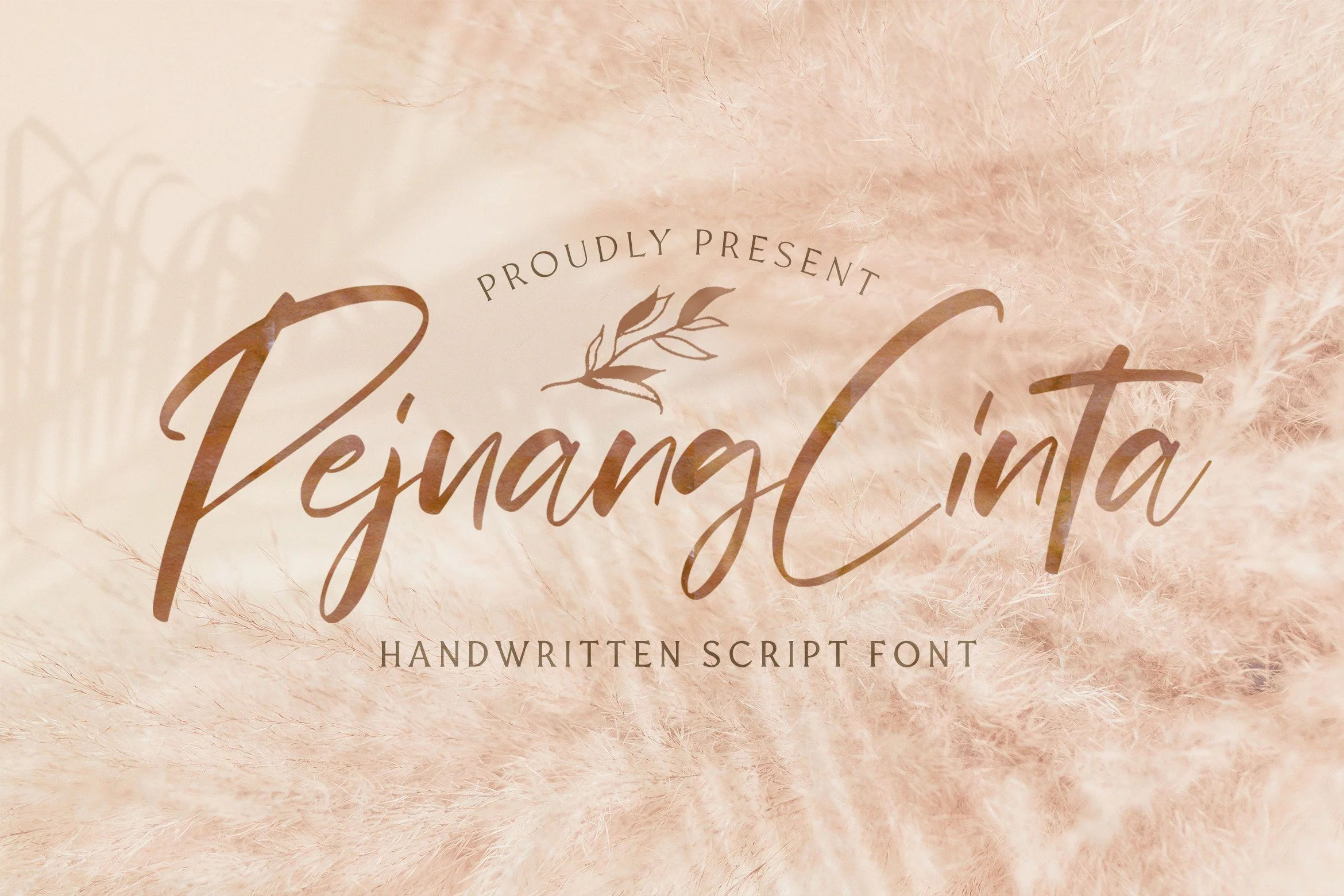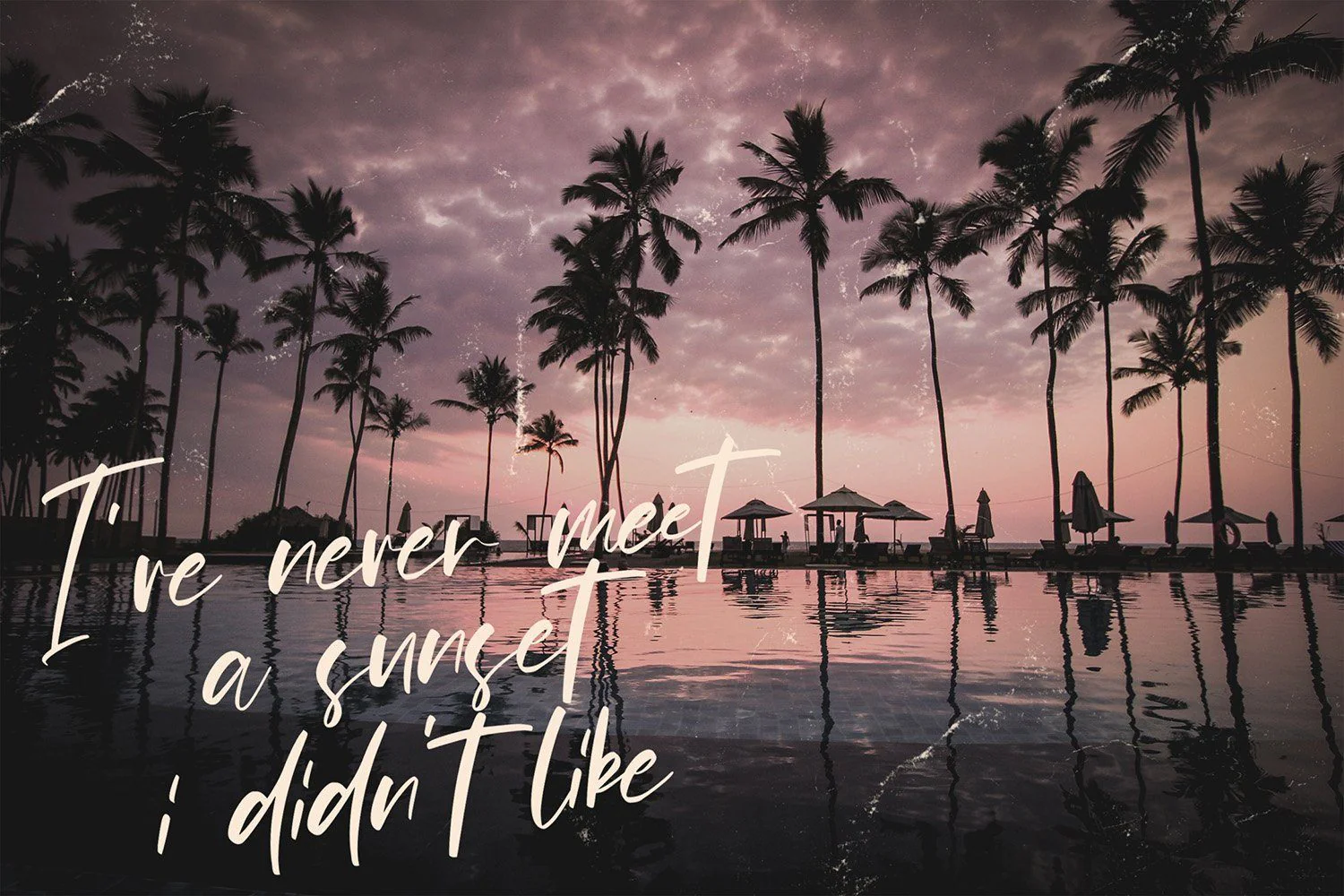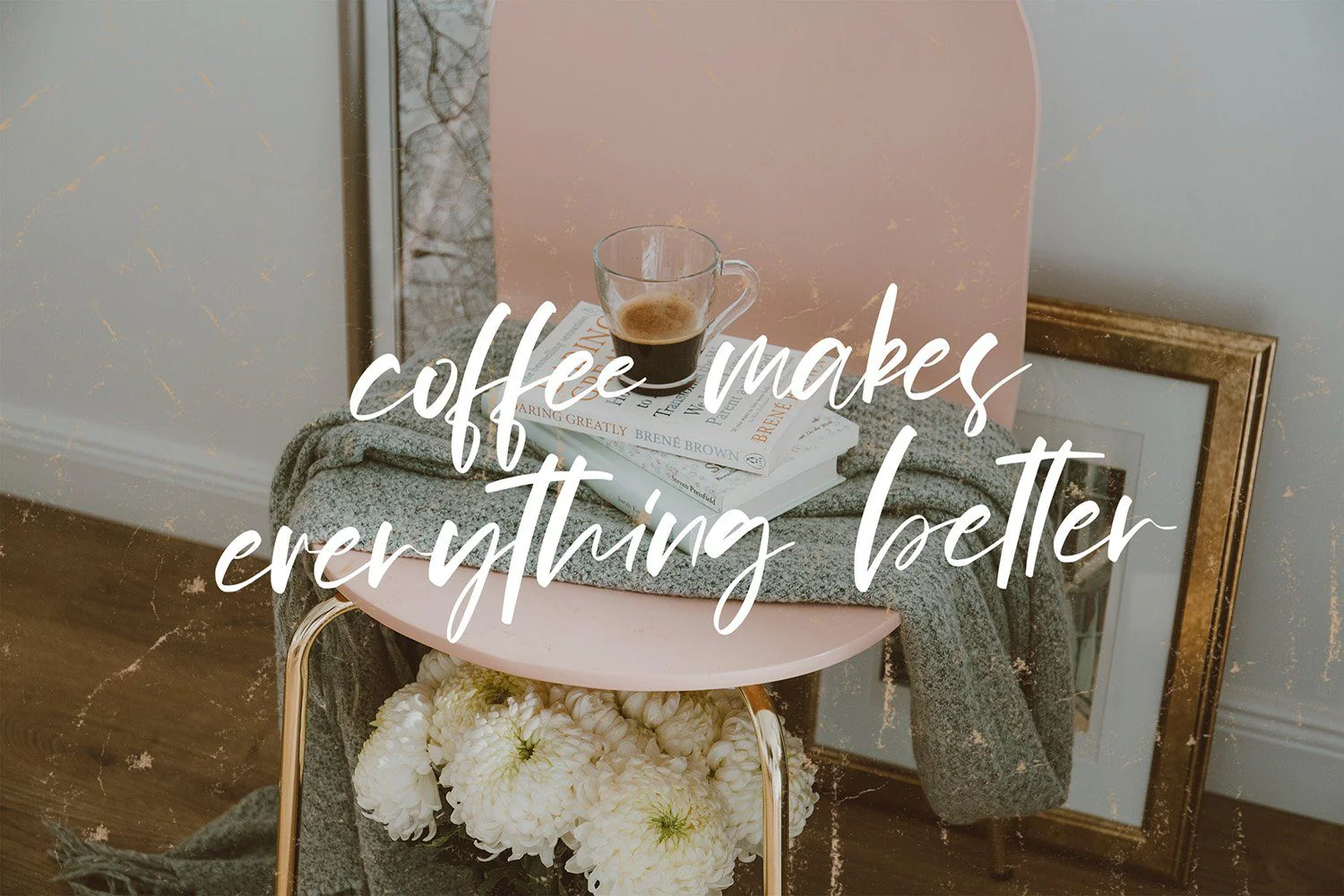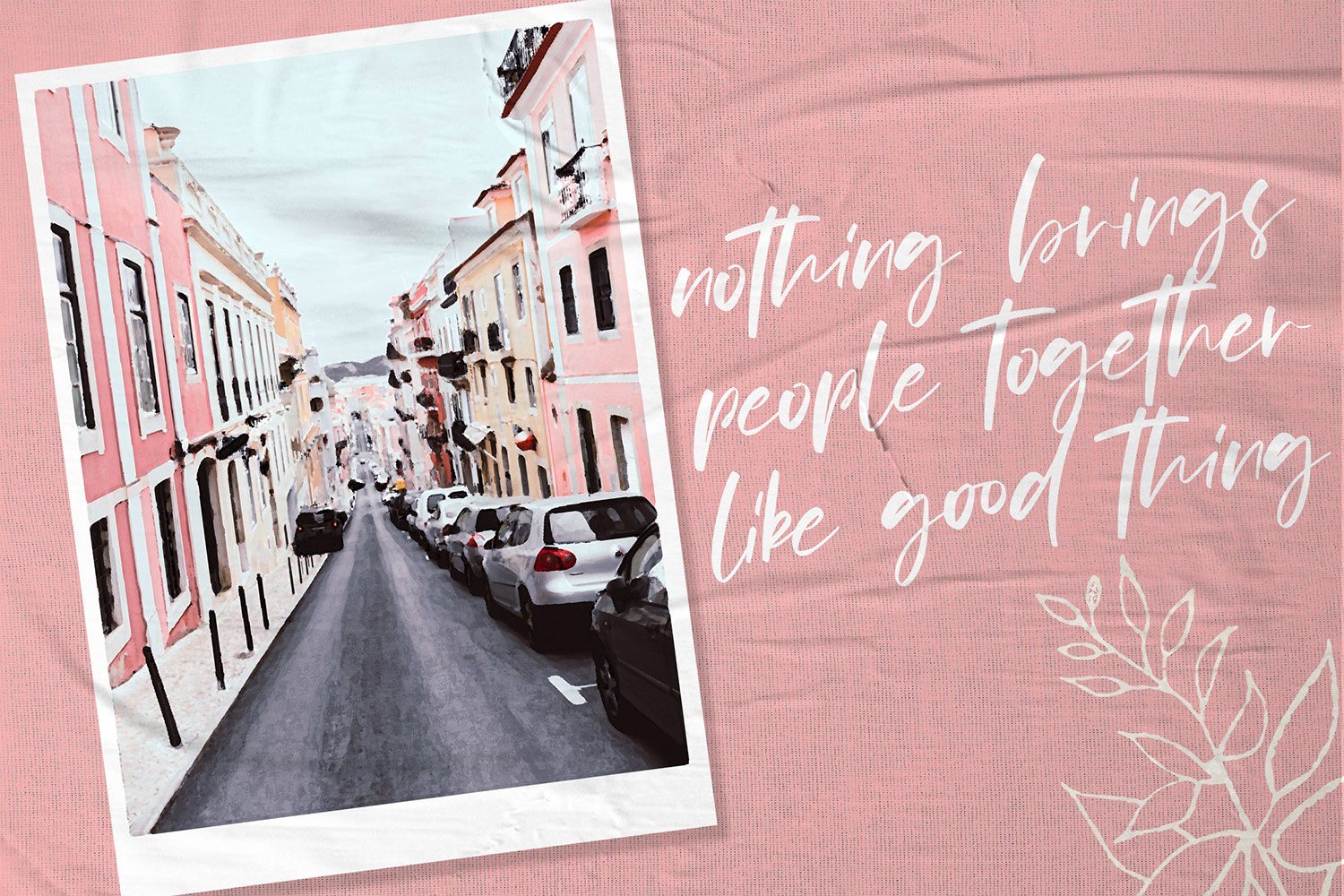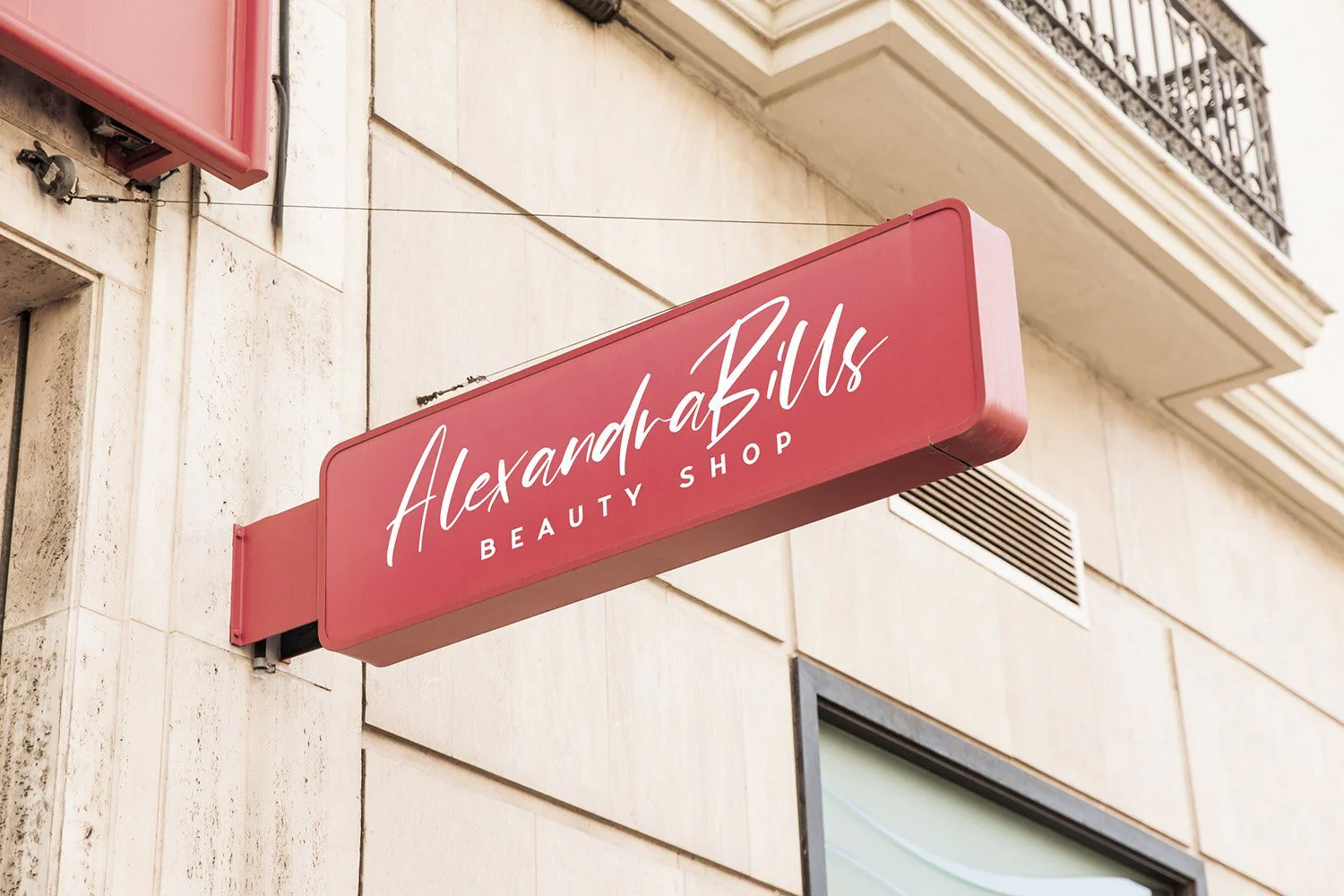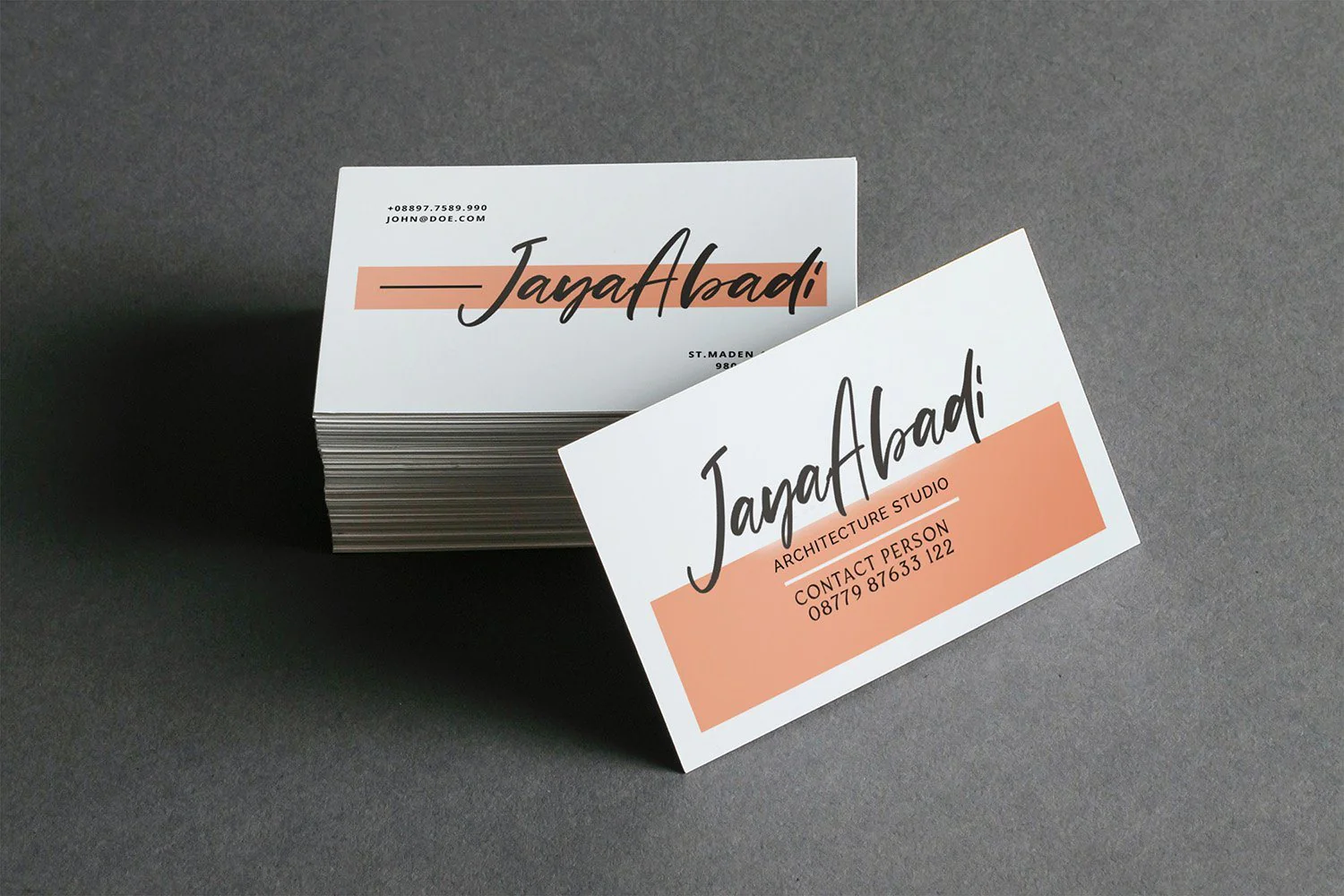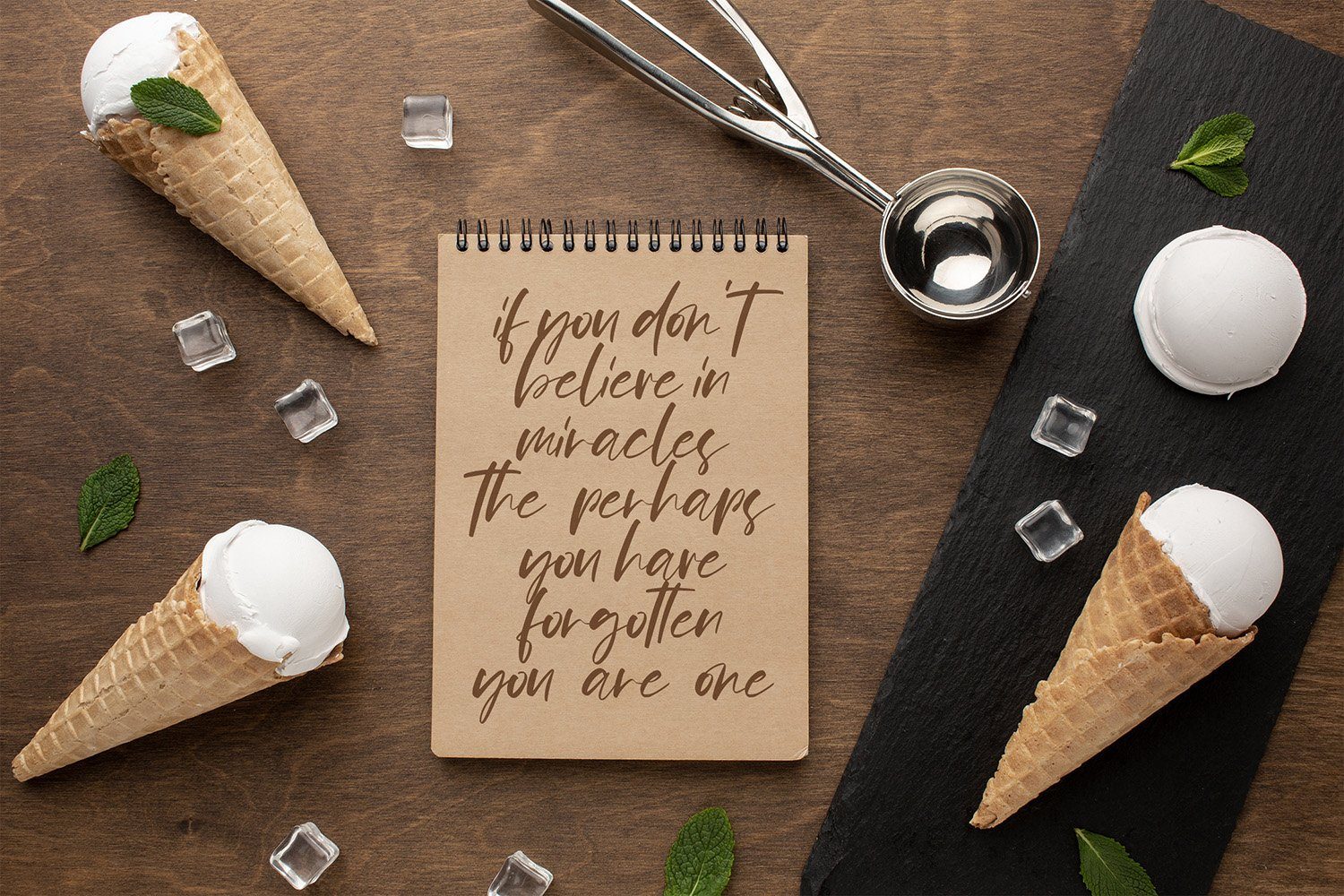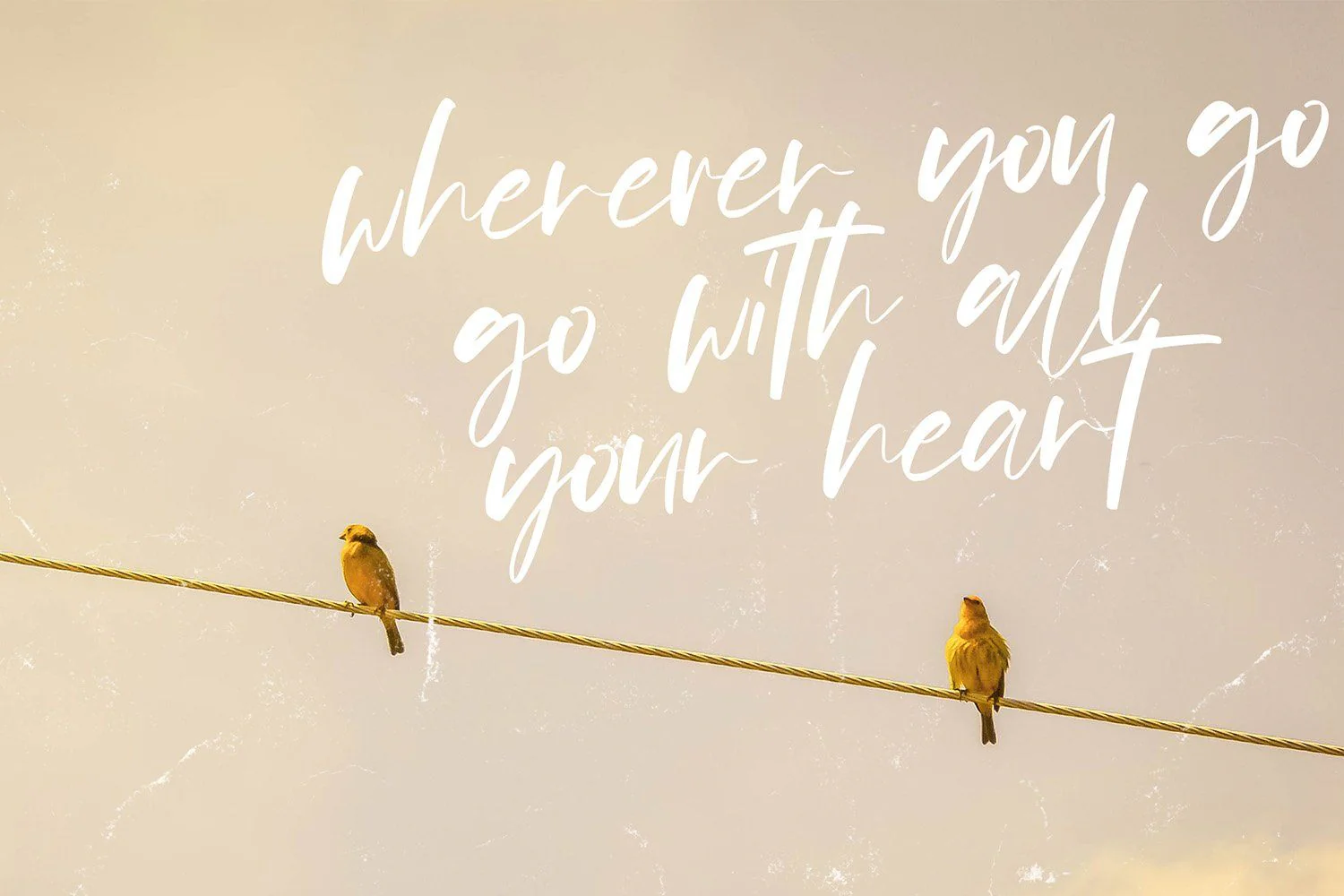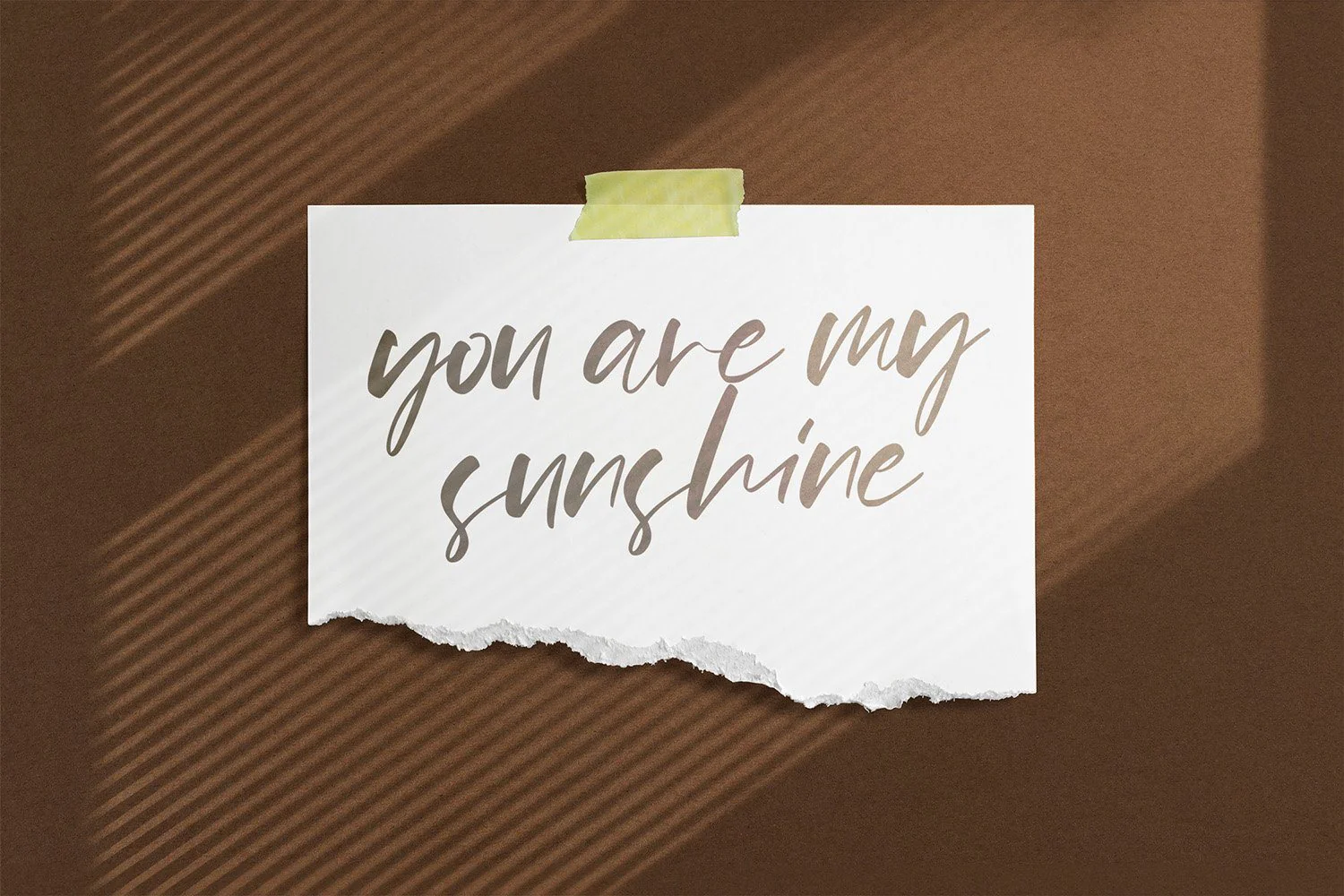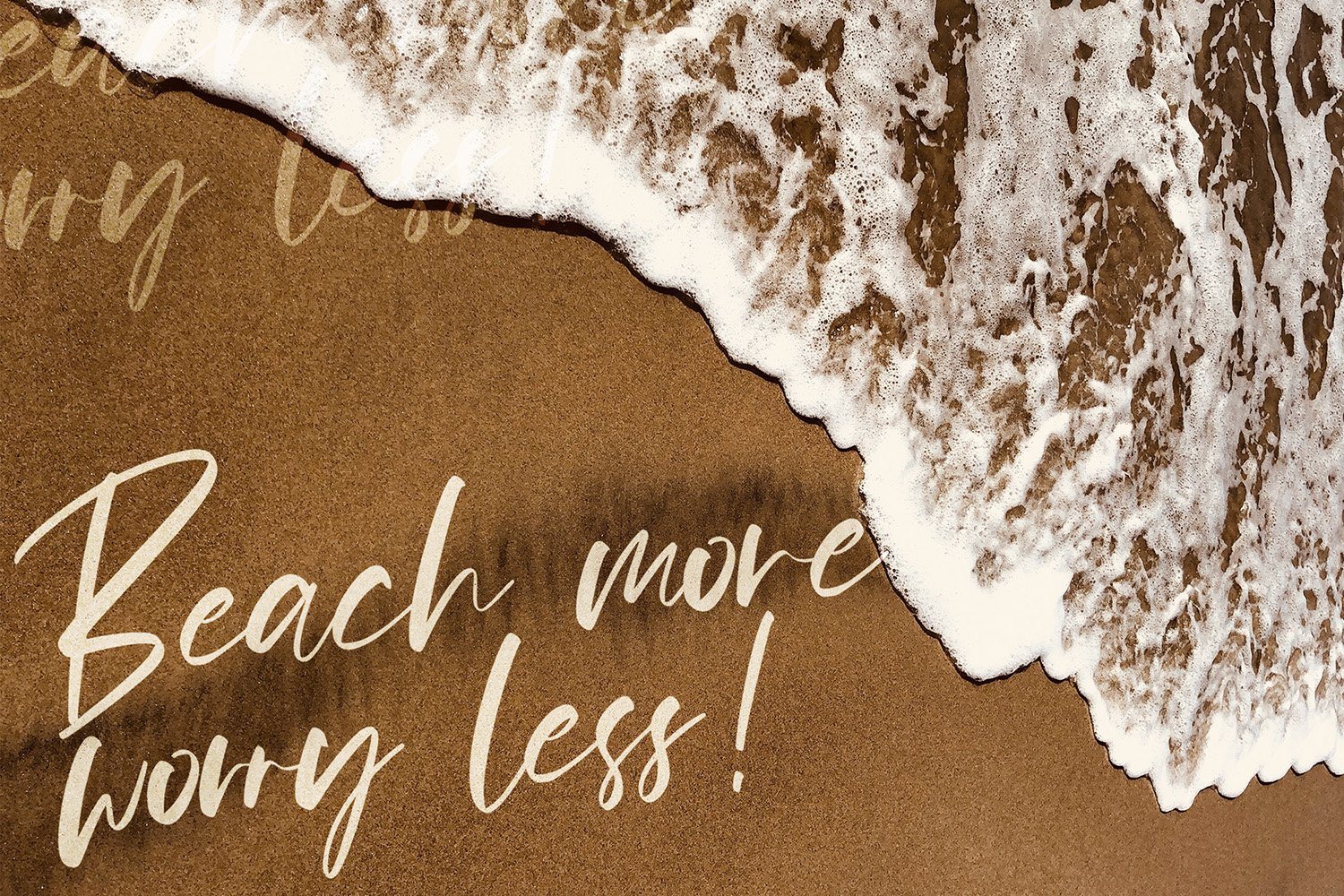
Pejuang Cinta - Handwritten Font
Introducing Pejuang Cinta - Handwritten Font
Pejuang Cinta is a Script Font with Handwritten Style. The Pejuang Cinta font made with digital brush pen strokes that making this font look authentic. This font is perfect for fashion brand, wedding invitation, business card, logo brand, signature, and then calligraphy.
This Font contains Elegant, Modern, Stylish and has a Unique Concept.
Introducing Pejuang Cinta - Handwritten Font
Pejuang Cinta is a Script Font with Handwritten Style. The Pejuang Cinta font made with digital brush pen strokes that making this font look authentic. This font is perfect for fashion brand, wedding invitation, business card, logo brand, signature, and then calligraphy.
This Font contains Elegant, Modern, Stylish and has a Unique Concept.